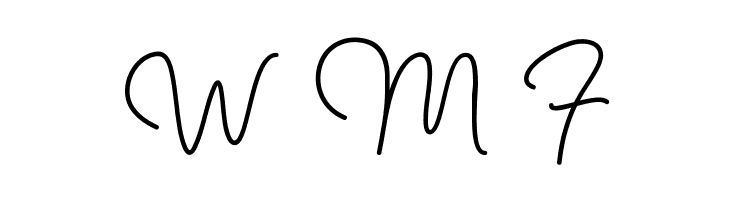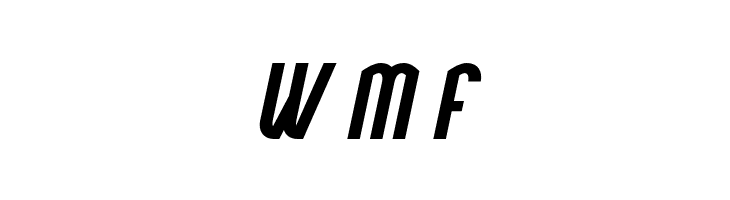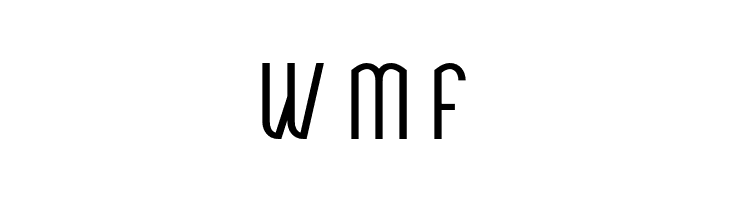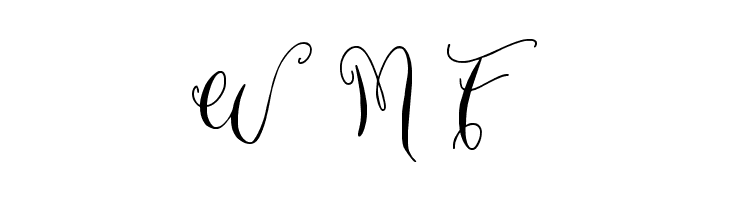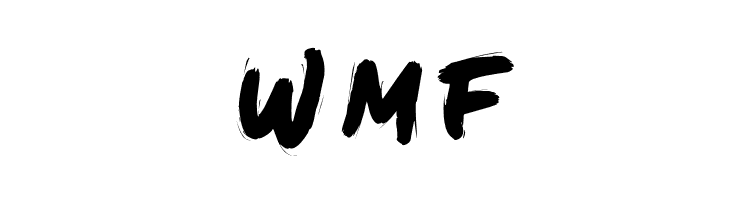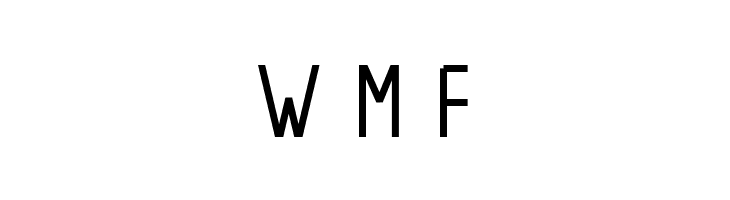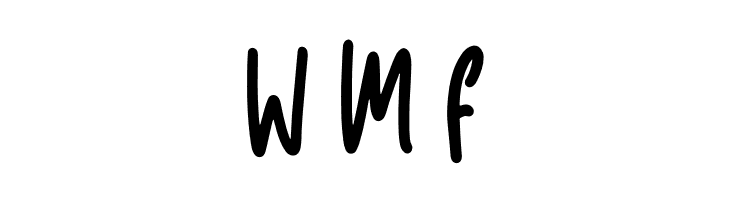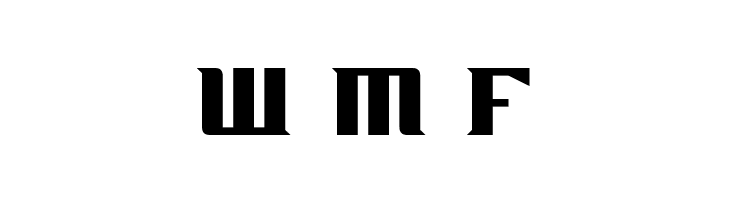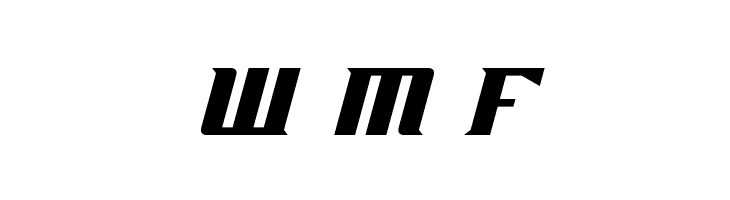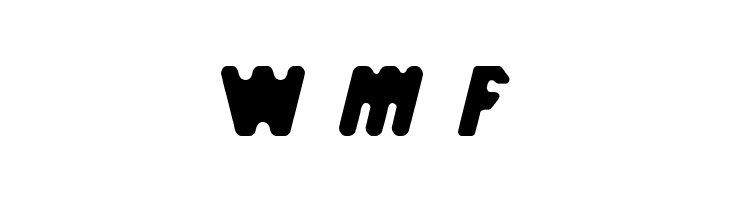
A modern, geometric font with clean lines and a sleek appearance.
A modern, clean sans-serif font with a slightly condensed style.
A bold, modern sans-serif font with a compact and efficient design.
A modern, extra-light sans-serif font with a narrow, elongated style.
A sleek, extra-light sans-serif font with a modern and condensed design.
A modern, light, and condensed sans-serif font with high legibility.
A modern, clean sans-serif font with a slightly condensed style.
A thin, modern sans-serif font with a sleek and elegant design.
A bold, geometric font with angular, modern letterforms.
A bold, modern font with a geometric and condensed design.
A bold, italicized font with high contrast and dynamic slanted letterforms.
A sleek, italicized font with a modern and dynamic style.
A modern, sleek font with clean lines and a slightly condensed style.
A whimsical and decorative serif font with a vintage-modern blend.
A modern geometric font with clean lines and angular cuts.
A bold, expressive handwritten font with tall, narrow letters and fluid strokes.
A playful, handwritten script font with a casual and friendly style.
A bold, decorative font with a medieval and ornate style.
A bold, angular font with a modern, geometric style.
A bold, italic font with sharp angles and a dynamic, forward-leaning design.
A bold, italic font with angular, futuristic design.
A bold, angular font with a futuristic and geometric style.
A bold, angular, and italicized font with a futuristic style.
A bold, dynamic brushstroke font with expressive, hand-painted style.
An elegant script font with flowing, ornate letters and intricate swashes.
A bold, industrial-style font with geometric and angular characters.
A bold, playful font with a three-dimensional outline, perfect for decorative uses.